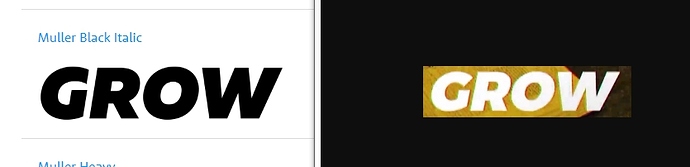
Most like Muller Black Italic https://www.myfonts.com/fonts/font-fabric/muller/
In fact, a fairly trivial italic font. Even Unicode has something like this https://exoticfonts.com/cursive-translator/